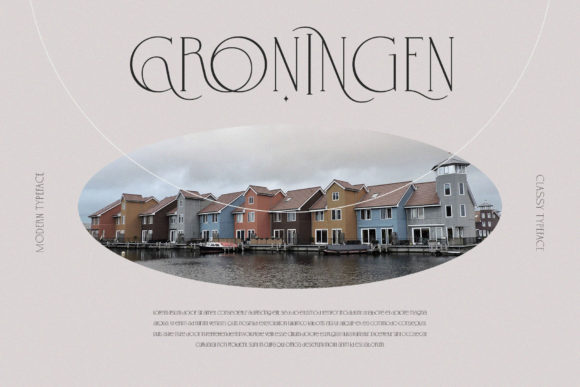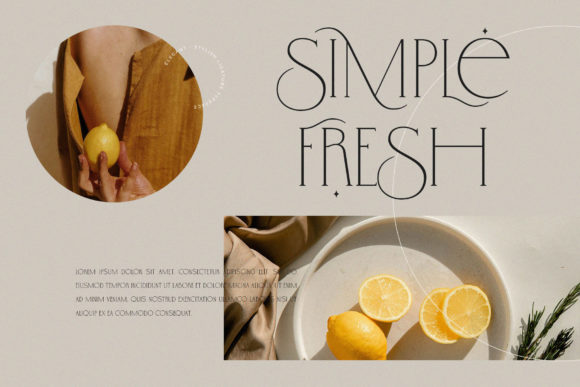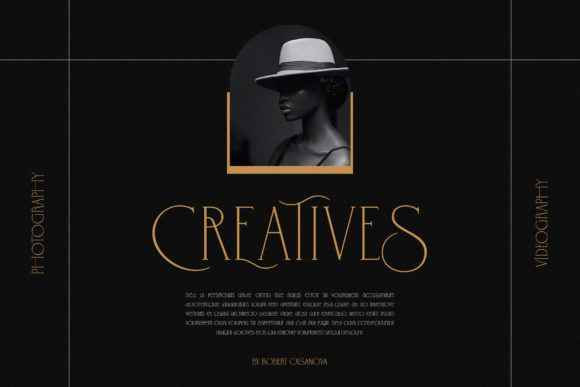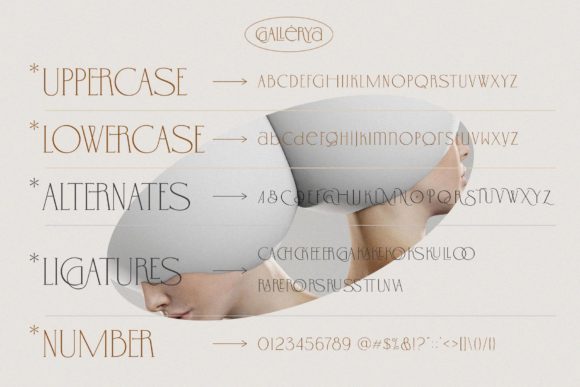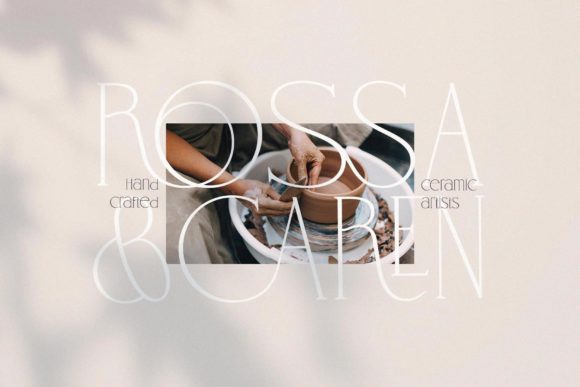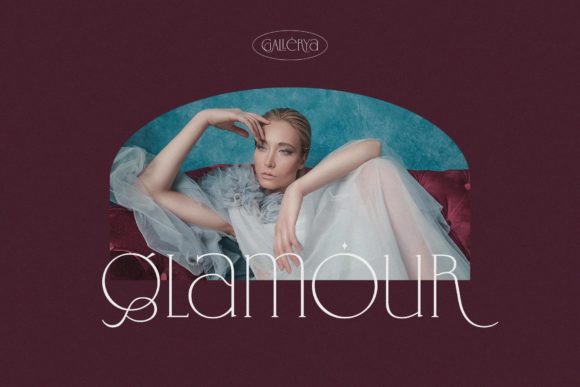
Introduction to Gallerya Font
Gallerya is a thin lettered, delicate and beautiful serif font.
It looks stunning on wedding invitations, thank you cards, quotes, greeting cards, logos, business cards and every other design which needs a customized touch .
Key Features of Gallerya Font